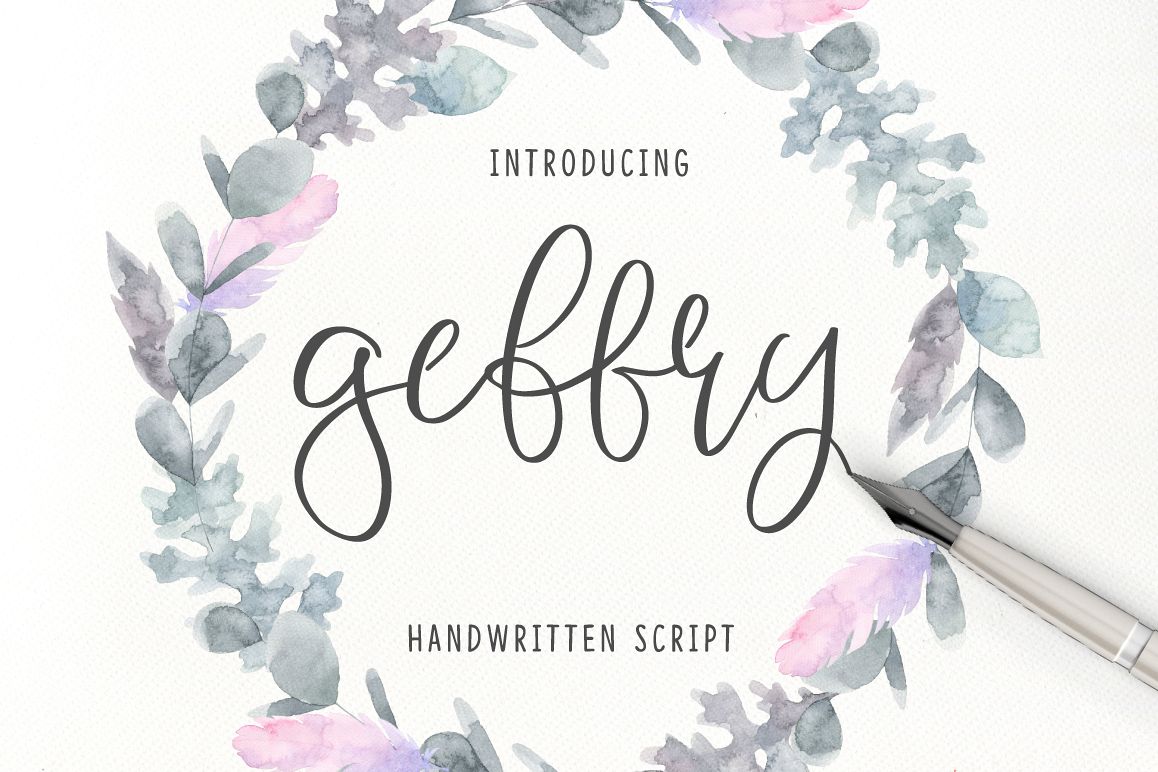
Geffry Script
It's handwritten brush script with many different ligatures. This font is ideal for branding and decorate your any project.
This font are perfect for wedding invitation or your blog. Also with their help, you can create a logo or beautiful frame for your home. Or just use for your small business, book covers, stationery, marketing, magazines and more.